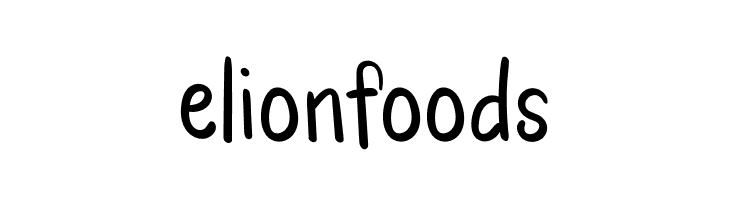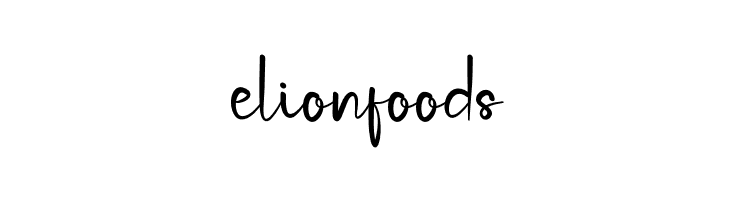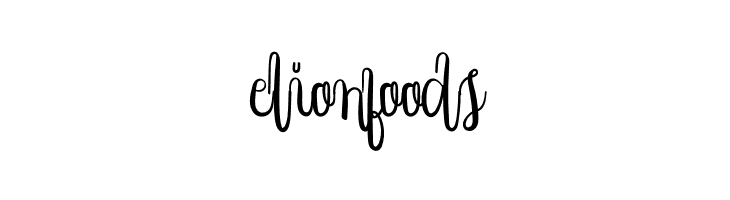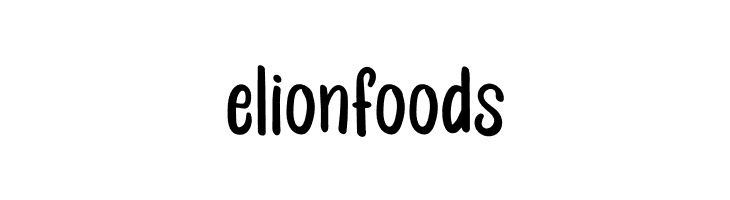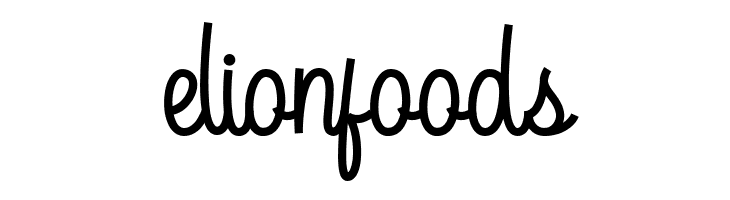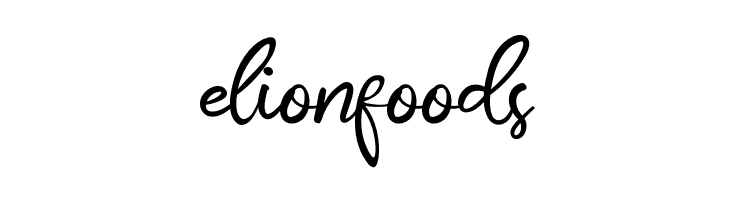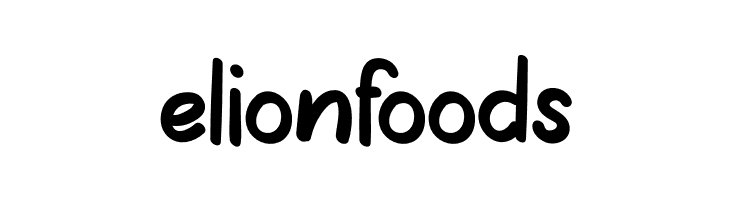
A playful, casual handwritten font with rounded, consistent strokes.
A playful and elegant script font with a handwritten style.
A playful, elegant handwritten font with smooth, flowing lines and a casual sophistication.
A playful, whimsical font with bold curves and decorative swirls.
A playful, hand-drawn font with rounded edges and a whimsical style.
A modern, cursive font with elegant, flowing strokes.
A playful, whimsical script font with a handwritten feel.
A playful and flowing script font with smooth, cursive strokes and elegant loops.
A playful, bold font with rounded, thick strokes and a whimsical style.